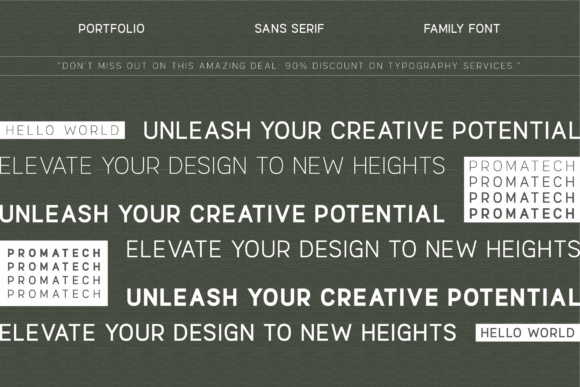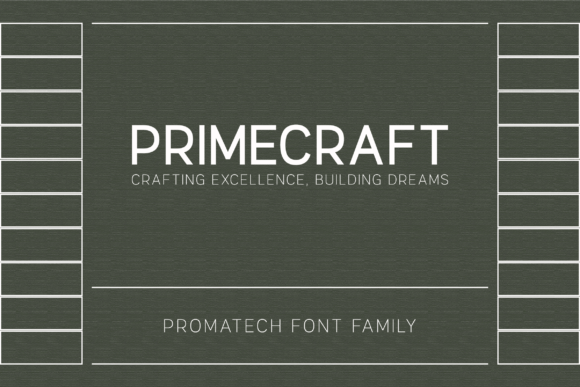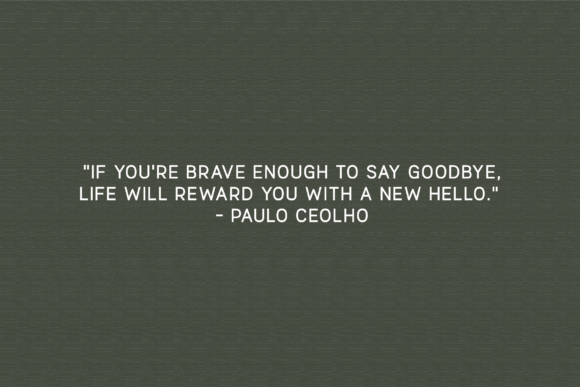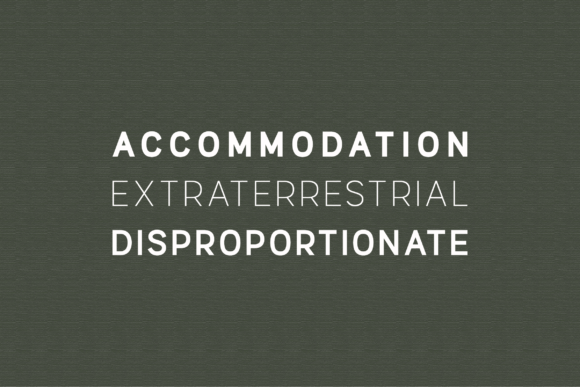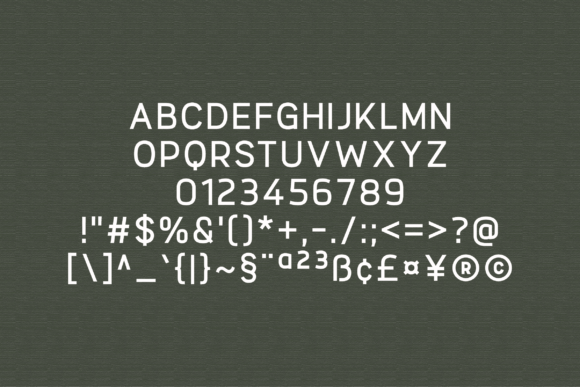
Introduction to Promatech Font
Remember that moment when you finally find the perfect font to elevate your design? It’s like a symphony of letters coming together in perfect harmony. For designers, it’s a crucial moment that can make or break a project. That’s where the Promatech Font comes in – a game-changing sans serif collection that’s about to become your go-to design resource.
With its 5 distinct weights, the Promatech Font seamlessly blends modernity and luxury, offering a high-quality typography solution for any creative project. Whether you’re working on a magazine, logo, or film poster, this font family effortlessly enhances your design with its transparent background and sleek aesthetic.
Key Features of Promatech Font
- High-quality design: Promatech Font is designed with precision and attention to detail, ensuring a polished look for any creative project.
- Transparent background: This font features a transparent background, making it ideal for use on images or designs with complex backgrounds.
- Large character set: Promatech Font includes a large character set, including uppercase and lowercase letters, numbers, and punctuation marks.
- High-resolution design: This font is designed at a high resolution (300 DPI), making it suitable for use in print and digital designs.
- Unique design style: Promatech Font features a unique and creative design style, setting it apart from other fonts in its class.
Honest Review: Promatech Font
I recently had the chance to work with the Promatech Font and I must say it’s a solid addition to any designer’s toolkit. ✨ One of the standout features of this font is its high quality design, making it perfect for a creative project that requires a premium look.
The font’s transparent background allows for seamless integration with any background image or color, giving designers the flexibility to experiment with different design elements. This makes it an excellent design resource for any project.
- High quality design suitable for creative projects
- Transparent background for easy integration with different backgrounds
- May not be suitable for projects requiring a bold, sans-serif font
- Limited customization options compared to other font resources
Overall, the Promatech Font is a great addition to any designer’s library, offering a high-quality, versatile font that’s perfect for a wide range of creative projects.
Promatech Font is a high-quality design resource that offers a unique, creative way to enhance your projects. With its transparent background, it’s perfect for any design project that requires a clean and modern look.
Common Use Cases for Promatech Font
Promatech Font is perfect for a variety of design projects, including logos, business cards, and brochures. It’s also great for use in creative projects, such as infographics and posters.